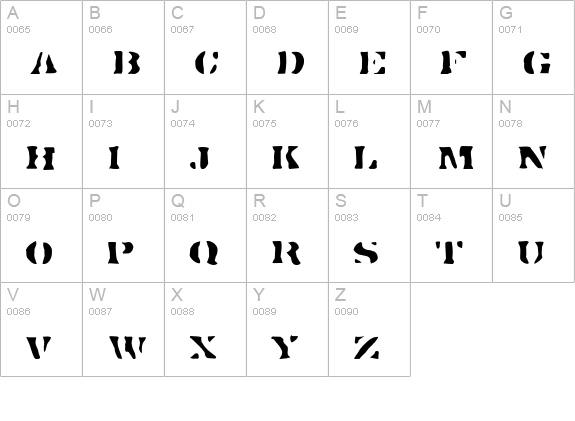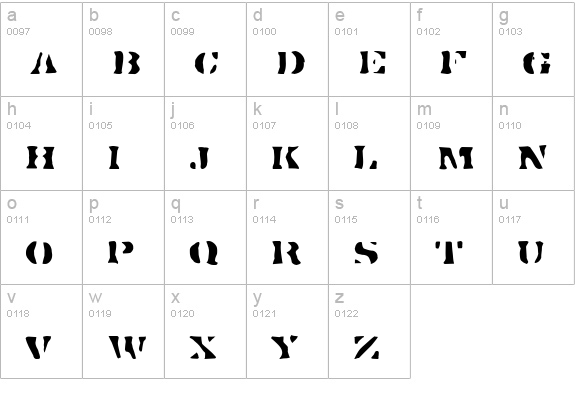
DirtyBakersDozen Gaunt Font Details
DirtyBakersDozen Gaunt font is a unique and edgy typeface that exudes a raw and rugged aesthetic. With its uneven lines and rough edges, this font is perfect for adding a touch of grit and character to your designs. Whether you're working on a poster, logo, or branding project, DirtyBakersDozen Gaunt font will make a bold statement. Best of all, this font is available for free download at FontsMarket.com. Simply visit the website to get your hands on this versatile and eye-catching typeface. Let DirtyBakersDozen Gaunt font unleash your creativity and take your designs to the next level.